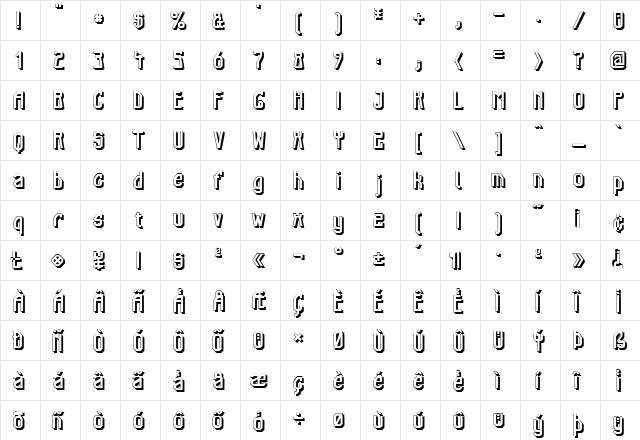
Elb-Tunnel Schatten Regular
| Foundry | Peter Wiegel |
| Designer | Peter Wiegel |
Design Context for Elb-Tunnel Schatten Typeface
Elb-Tunnel Schatten takes a measured approach to typography — its balanced proportions and neutral character make it a reliable workhorse for both digital and print work.